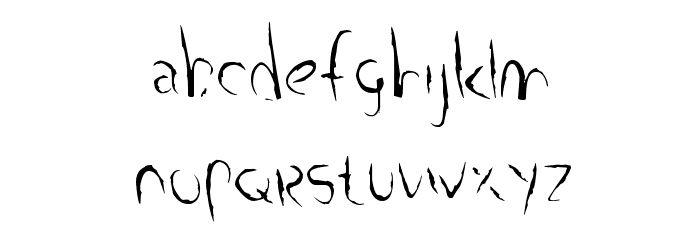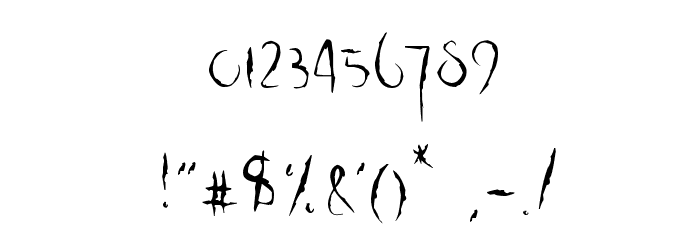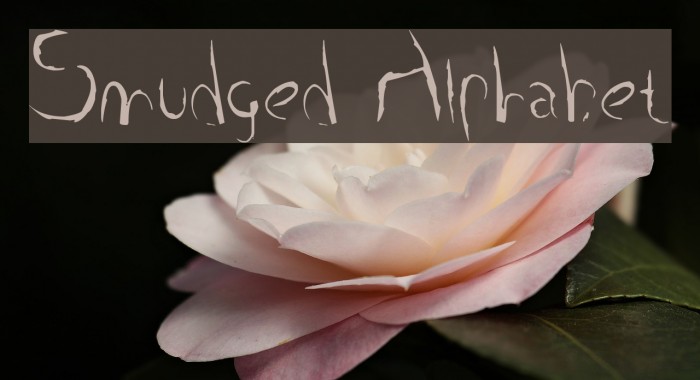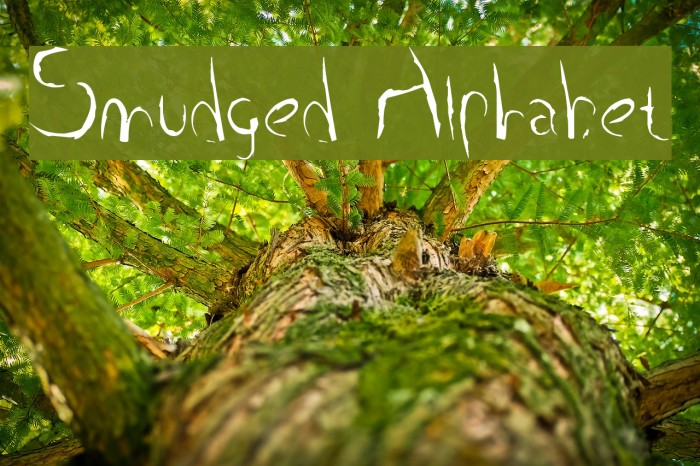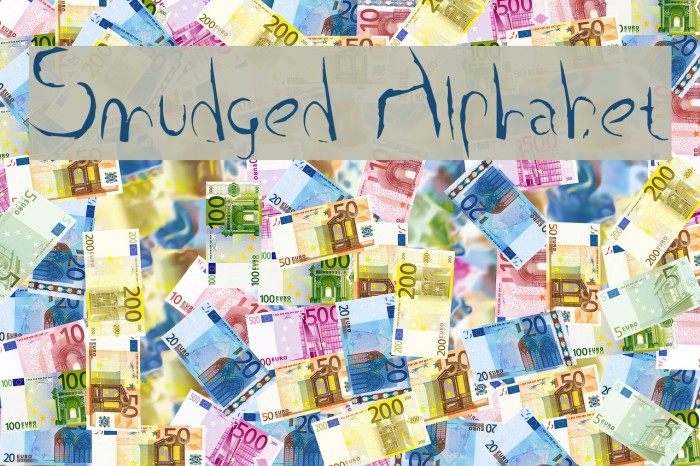
Smudged Alphabet Font
This font features an artistic and unconventional style, characterized by its smudged and irregular strokes that create a sense of movement and energy. The letters have a hand-drawn appearance, with varying thickness and a slightly chaotic structure that adds a unique flair. The uppercase and lowercase letters maintain a consistent style, while the numbers and special characters follow the same artistic theme. The overall look is edgy and modern, making it suitable for creative and bold design projects.
An artistic, smudged font with irregular strokes and a hand-drawn appearance.
- Proposed Projects: Ideal for album covers, posters, graffiti art, and other creative projects that require a bold and unconventional look.
- Use Case: Headlines, Logos, Artistic projects